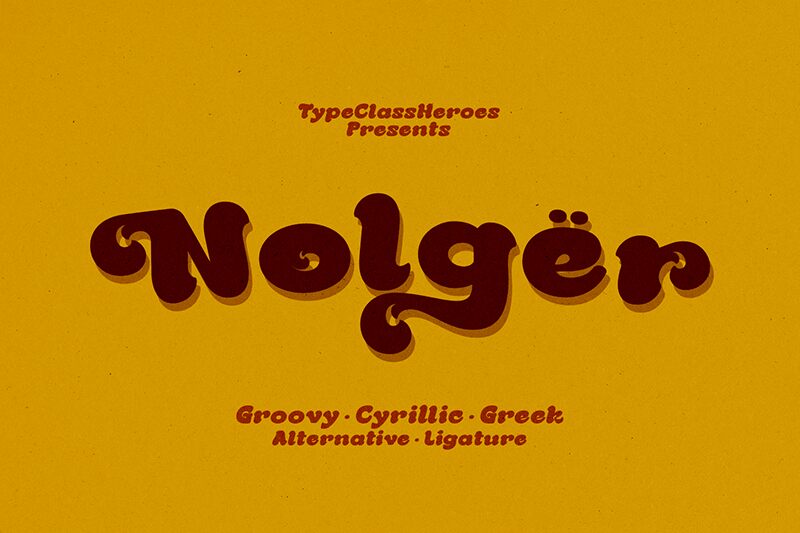
Nolger Demo Regular
Nolger font by TypeClassHeroes is a groovy display font with a bold weight and wide-set letters. Expanded horizontally, the smooth Nolger characters come with soft edges that give them their friendly and casual vibe. The distinct design takes inspiration from retro styles for a unique appearance suitable for eye-catching contemporary use.